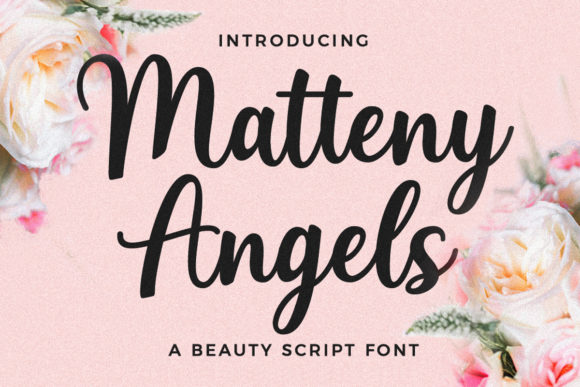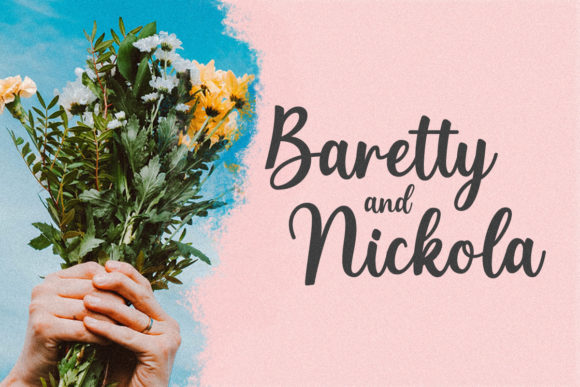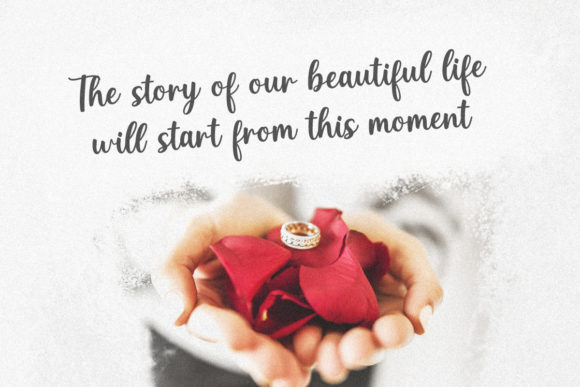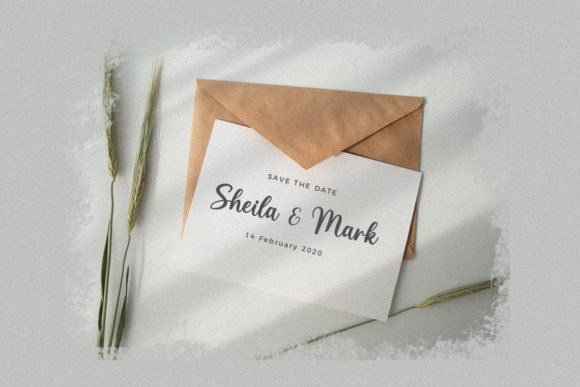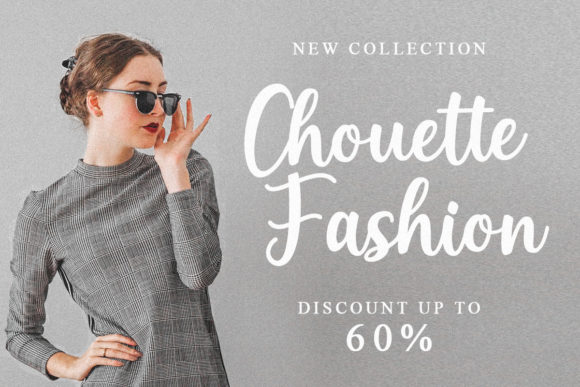
About Matteny Angels Font
Matteny Angels is a beautiful and flowing script font. It will add a luxury spark to any design project that you wish to create! This font is PUA encoded which means you can access all of the amazing glyphs and ligatures with ease!